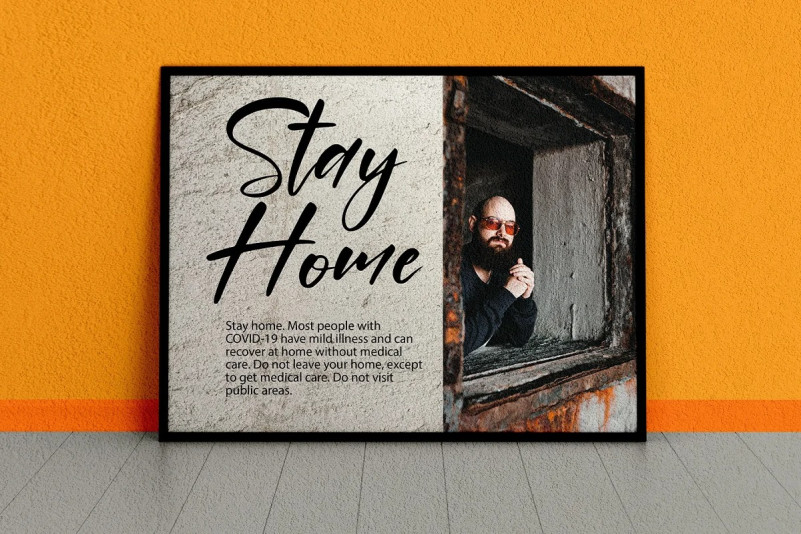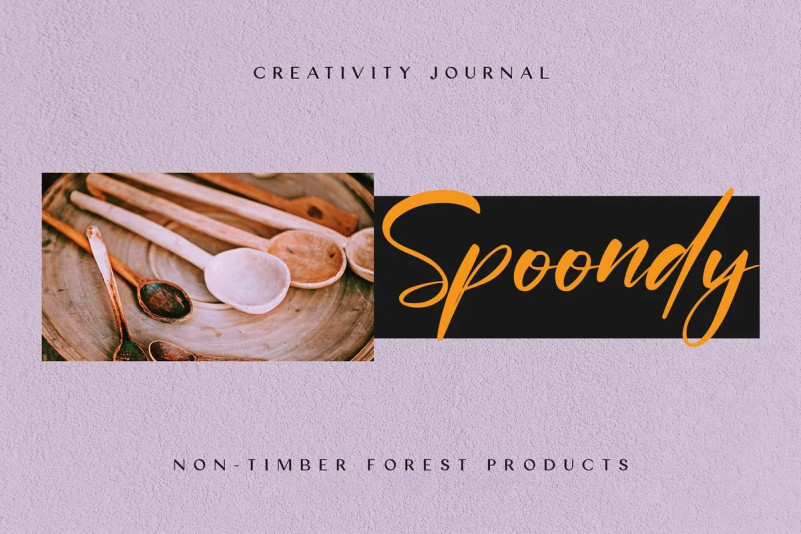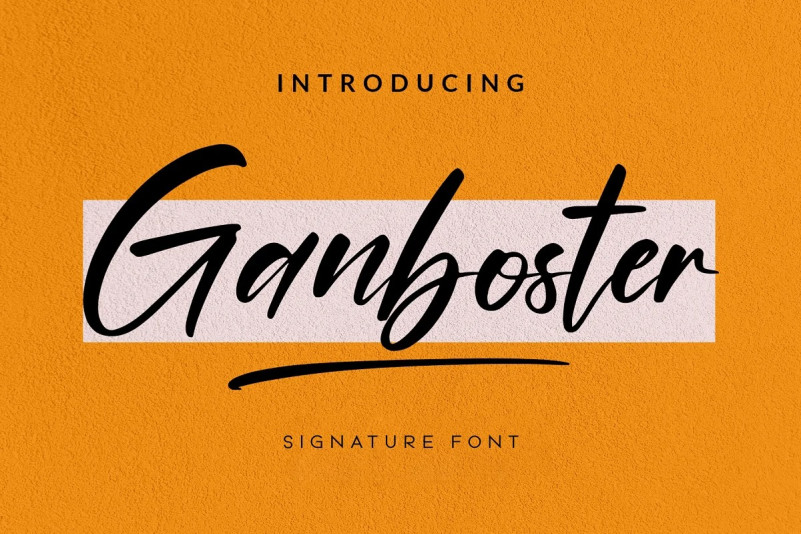
Ganboster Font
Ganboster Font is a casual and trendy handwritten font, crafted to give your headlines and logotype projects a stylish touch. This font reads as strong, confident, and dynamic and can add tons of nostalgic character to your designs.